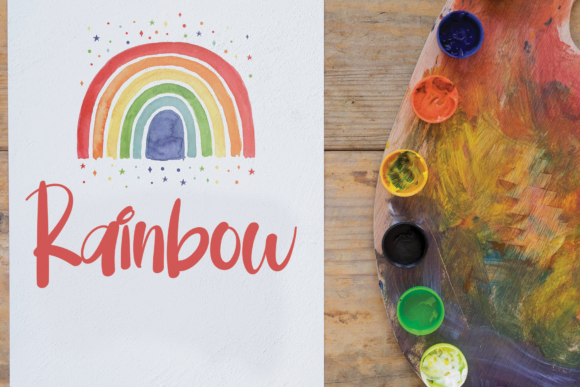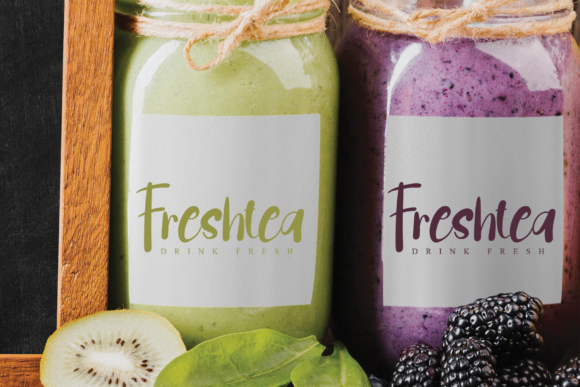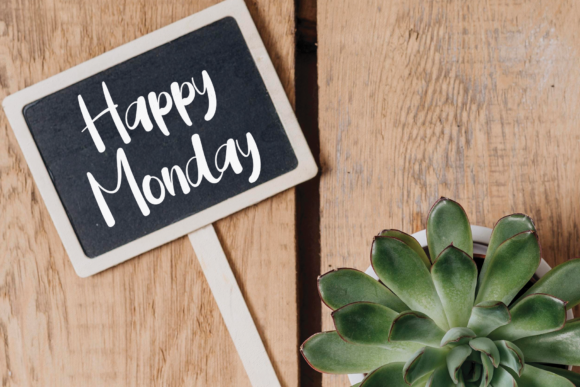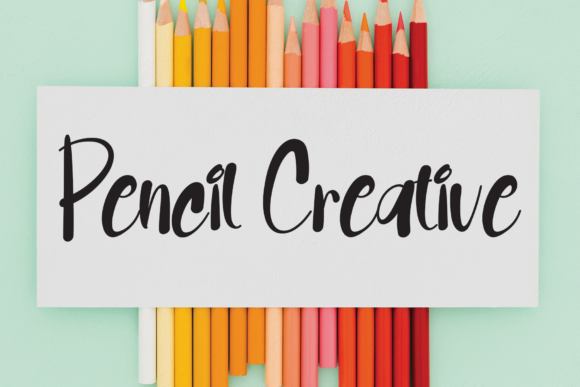
Introducing Cloud Font: The Ultimate Choice for Elegant and Personalized Designs
Are you a designer or crafter looking for a font that can add a touch of elegance and personality to your designs? Look no further than Cloud Font, a chic and flowing script font that is perfect for creating beautiful and unique designs. In this article, we’ll take a closer look at Cloud Font, its features, and how you can use it to take your designs to the next level.
What is Cloud Font?
Cloud Font is a stunning script font that is designed to add a touch of sophistication and whimsy to your designs. With its dainty and joyful feel, this font is ideal for writing wedding invitations, cards, or any other design that may need a personalized touch. Whether you’re a professional designer or a crafty DIY enthusiast, Cloud Font is the perfect choice for anyone looking to create beautiful and eye-catching designs.
Key Features of Cloud Font
So, what makes Cloud Font so special? Here are some of its key features:
- Chic and Flowing Script: Cloud Font features a beautiful, flowing script that is perfect for creating elegant and sophisticated designs.
- Dainty and Joyful: This font has a dainty and joyful feel that makes it perfect for wedding invitations, cards, and other designs that require a personal touch.
- Highly Versatile: Cloud Font can be used for a wide range of design projects, from wedding invitations and cards to branding and packaging.
- Easily Readable: Despite its elegant and cursive feel, Cloud Font is highly readable, making it perfect for designs that require a clear and easy-to-read text.
How to Use Cloud Font in Your Designs
Now that we’ve covered the features of Cloud Font, let’s talk about how you can use it in your designs. Here are some ideas to get you started:
- Wedding Invitations: Cloud Font is perfect for creating beautiful and elegant wedding invitations that will set the tone for your special day.
- Cards and Stationery: Use Cloud Font to create personalized cards and stationery that will make your loved ones feel special.
- Branding and Packaging: Cloud Font can be used to create beautiful and eye-catching branding and packaging designs that will help your business stand out.
- DIY Projects: Cloud Font is also perfect for DIY enthusiasts who want to create personalized and unique designs for their craft projects.
Tips for Getting the Most Out of Cloud Font
Here are some tips for getting the most out of Cloud Font:
- Experiment with Different Sizes and Colors: Cloud Font looks great in a variety of sizes and colors, so don’t be afraid to experiment and find the perfect combination for your design.
- Pair it with Other Fonts: Cloud Font can be paired with other fonts to create a unique and interesting design. Try pairing it with a bold font for a striking contrast.
- Use it for Headings and Titles: Cloud Font is perfect for headings and titles, so use it to add a touch of elegance and sophistication to your designs.
In conclusion, Cloud Font is a beautiful and versatile script font that is perfect for designers and crafters who want to add a touch of elegance and personality to their designs. With its chic and flowing script, dainty and joyful feel, and highly readable text, Cloud Font is the perfect choice for a wide range of design projects. Whether you’re creating wedding invitations, cards, or branding and packaging designs, Cloud Font is sure to impress.